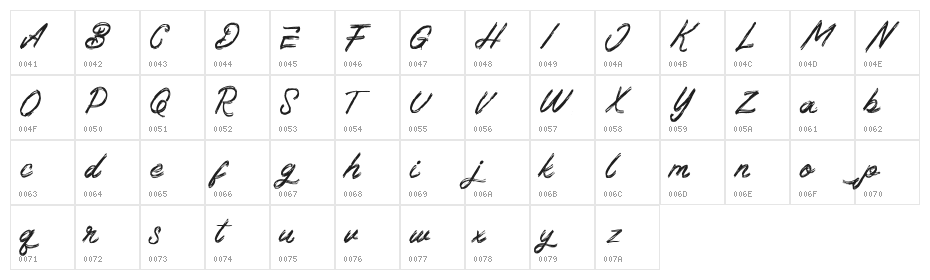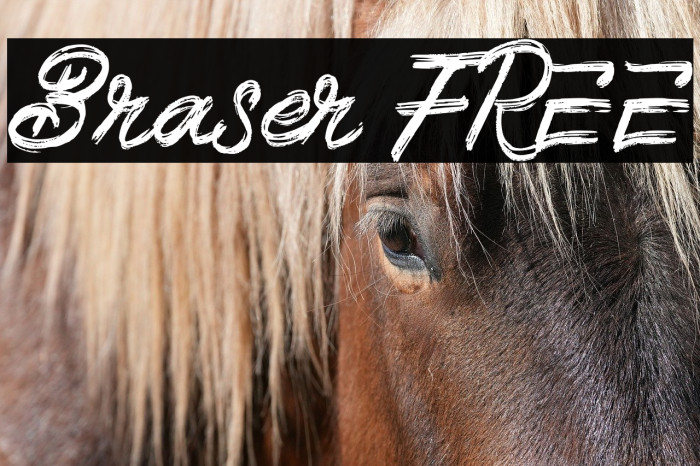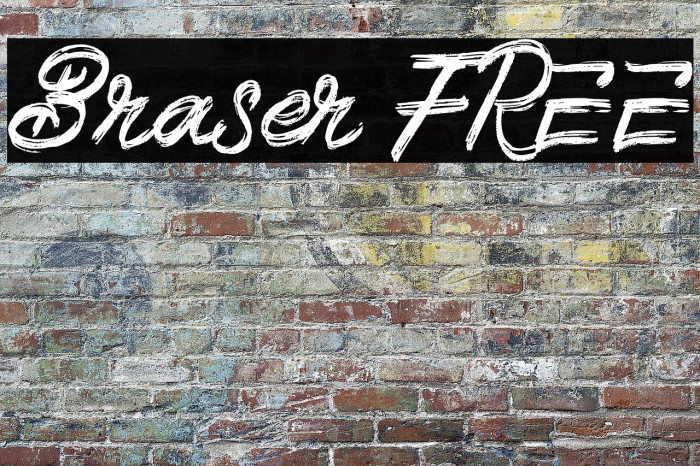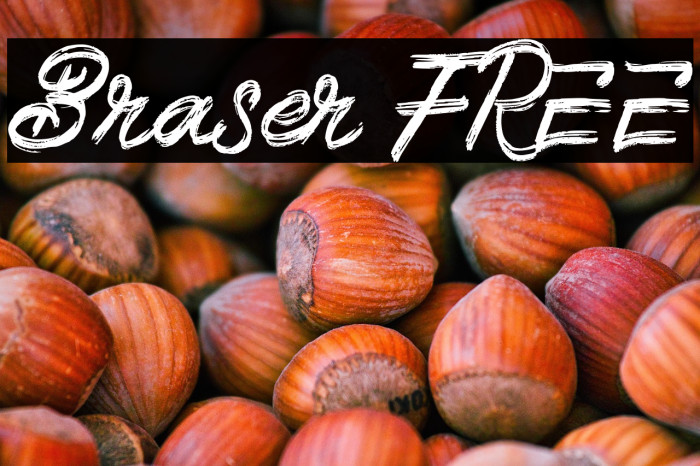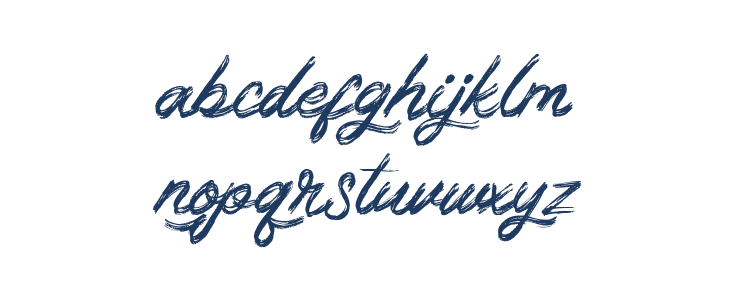
Braser FREE Font
| Область применения | Logos, Headlines, Posters |
| Рекомендуемые проекты | Ideal for creative projects such as logo design, branding, posters, and invitations where a personal and artistic touch is desired. |